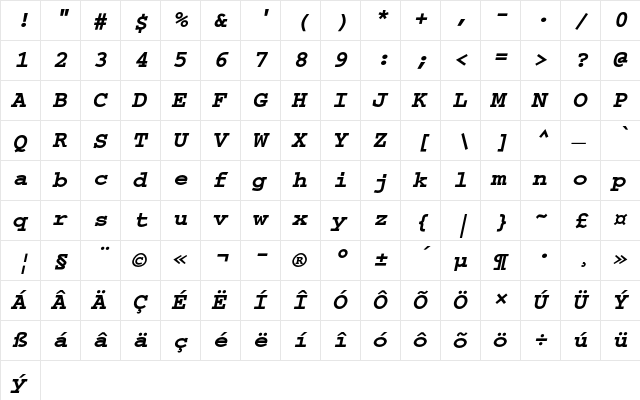
Courier CE Bold Oblique
Design Context for Courier Typeface
Courier uses fixed-width spacing throughout, giving it the structured, systematic character associated with coding environments and technical documentation. The slanted form adds forward momentum and visual energy. The heavy weight commands attention and anchors typographic hierarchies.
Pro Tip: Use Courier with slightly increased line-height for extended reading — fixed-width spacing can feel dense in longer passages without extra breathing room.